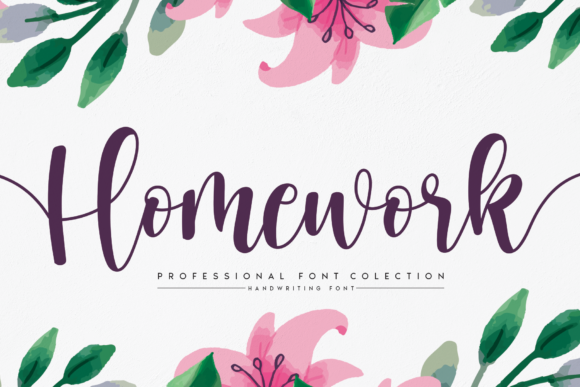
Introducing Homework Font, the perfect addition to your font collection! This stunning script font, created by the talented Creativewhitee, is a must-have for anyone looking to add a touch of elegance to their designs.
Homework Font is part of the Best Fonts For Baby Script collection, and it's not hard to see why! With its flowing handwritten style and timeless charm, it's the perfect choice for any project where you want to evoke feelings of warmth, love, and tenderness.
One of the standout features of Homework Font is its PUA encoding, which makes it incredibly easy to access all of the glyphs and swashes. This means you can create truly unique and eye-catching designs with ease!
Whether you're working on a baby shower invitation, a birth announcement, or a special gift for a new parent, Homework Font is sure to impress. It's also a great choice for wedding invitations, greeting cards, and any other project where you want to add a touch of romance and sophistication.